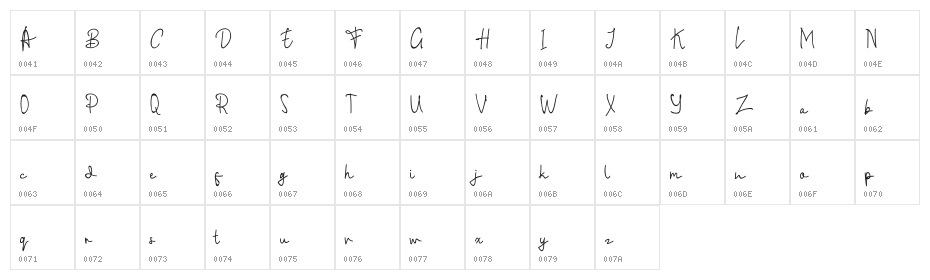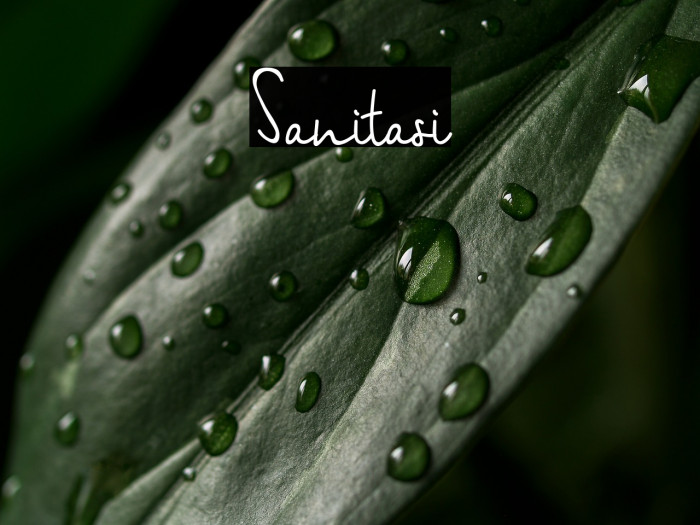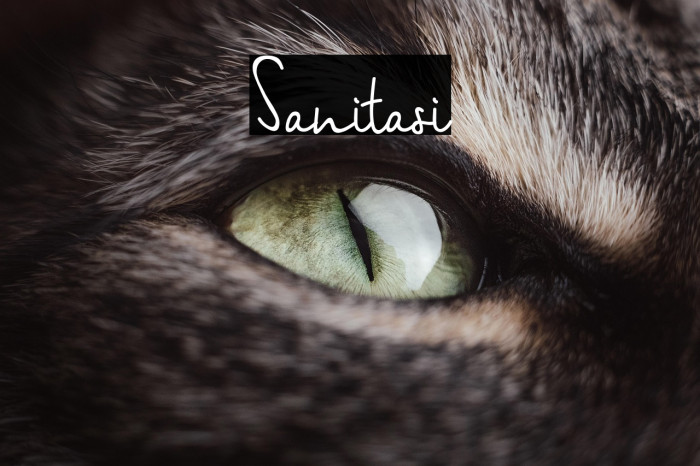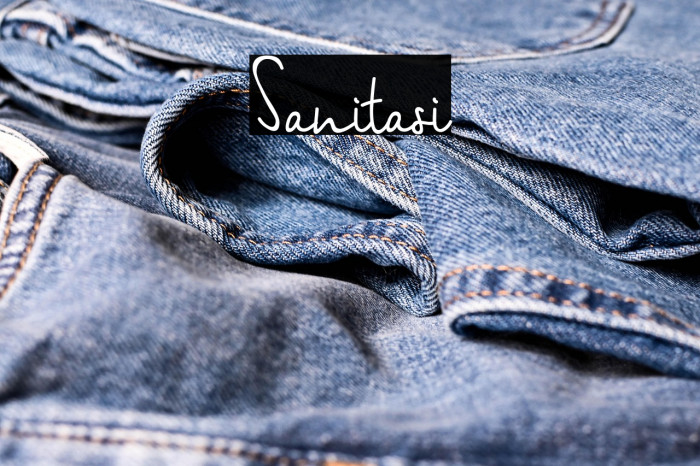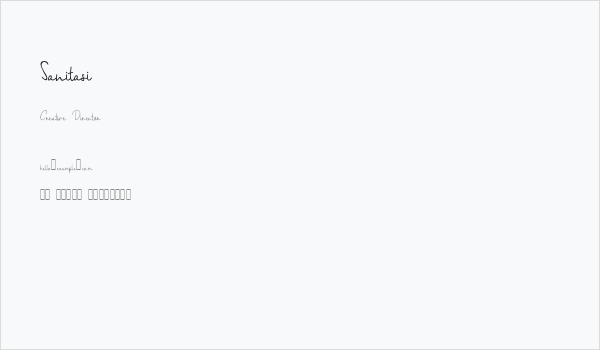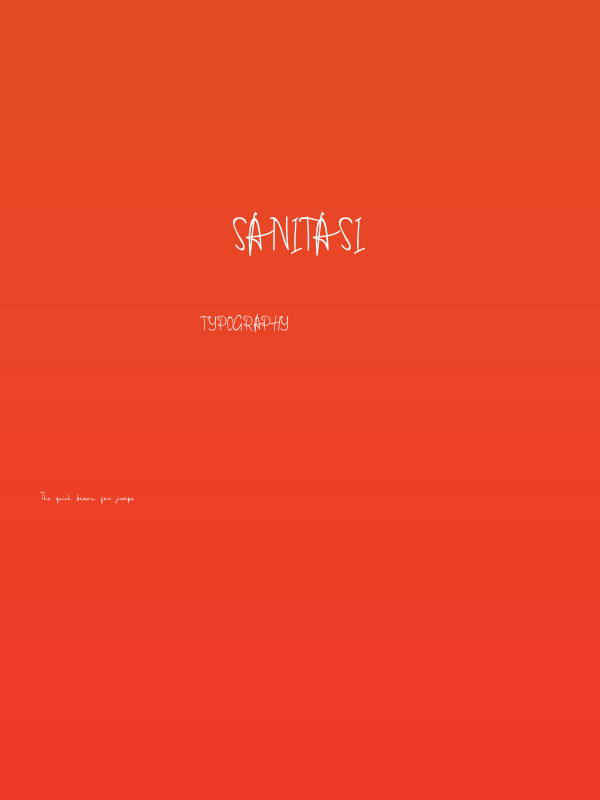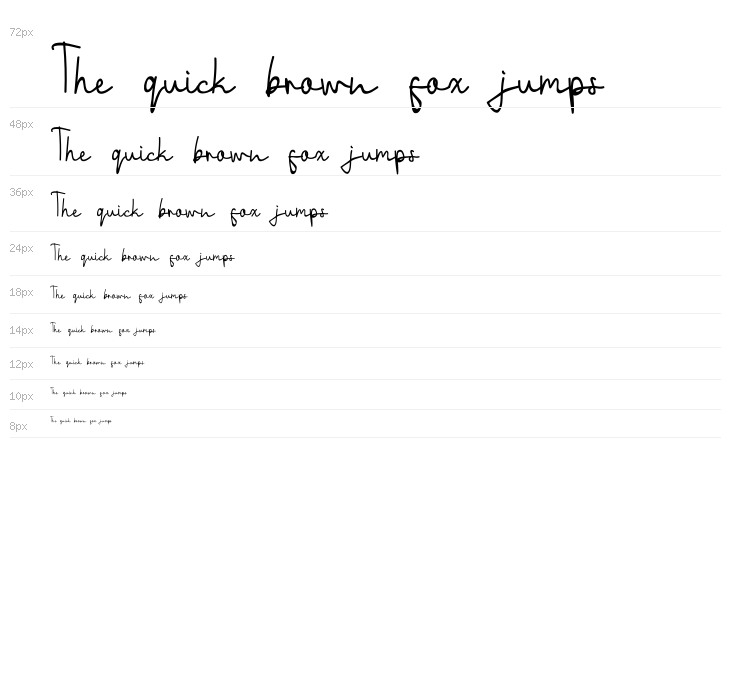
Sanitasi Font
Sanitasi Description
This font features a playful and dynamic handwritten style, characterized by its flowing and slightly irregular strokes that give it a personal and informal feel. The uppercase letters are tall and slightly narrow, with a whimsical touch that adds a sense of movement. The lowercase letters maintain a consistent style, with smooth curves and a casual appearance. The numbers and special characters follow the same playful aesthetic, making the font versatile for creative projects. Its unique style is suitable for designs that require a personal touch, such as invitations, greeting cards, or branding materials that aim to convey friendliness and approachability.
| Overall Style | Playful, Informal |
| Proposed Projects | Ideal for invitations, greeting cards, personal branding, and creative projects. |